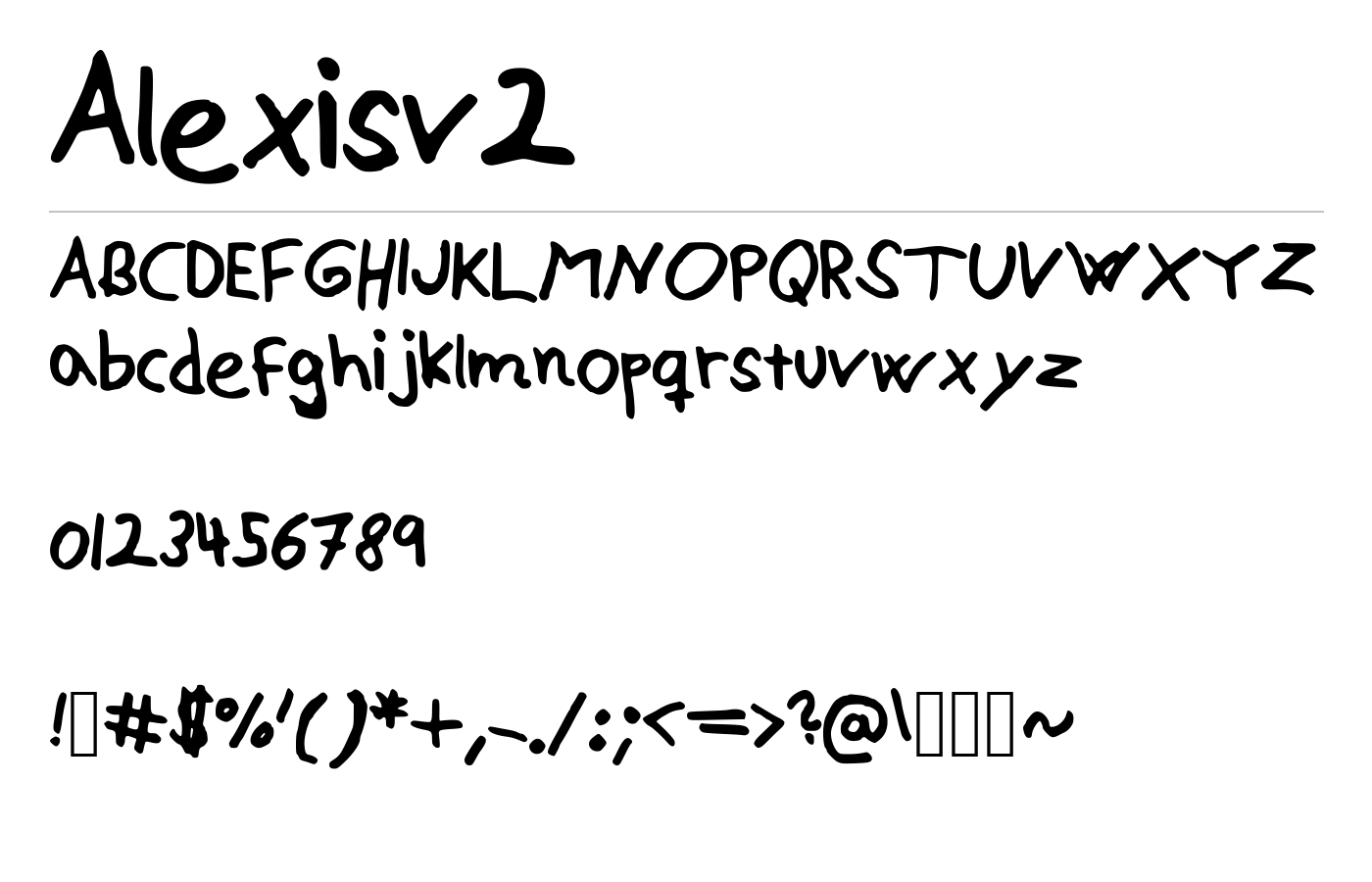
Alexisv2 is a playful, handwritten sans serif font that features a casual and organic feel with irregular stroke widths and slightly uneven letterforms. Its lively character and moderate x-height make it ideal for creative, informal designs like children's books, personal branding, and fun packaging. This font works best in contexts where a friendly, approachable tone is desired, adding personality and warmth to headlines and short texts.
Alexisv2 Font
About Alexisv2 Font